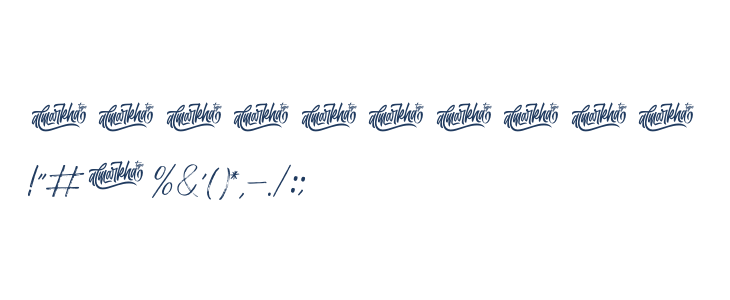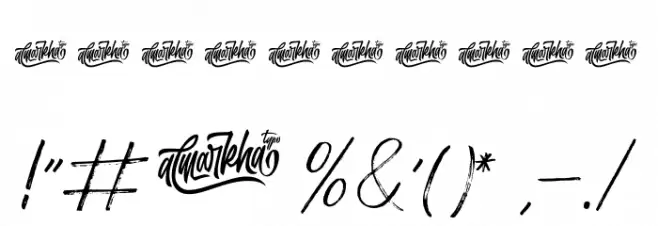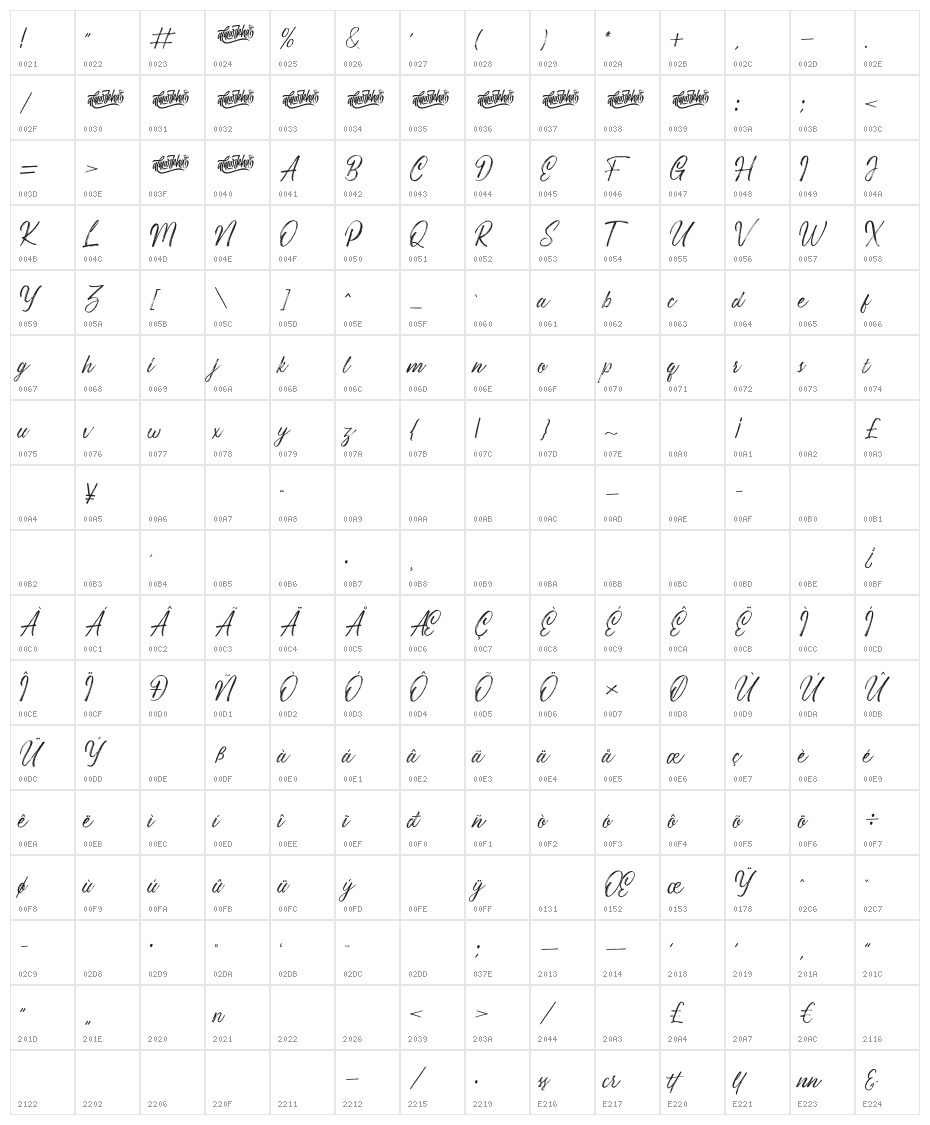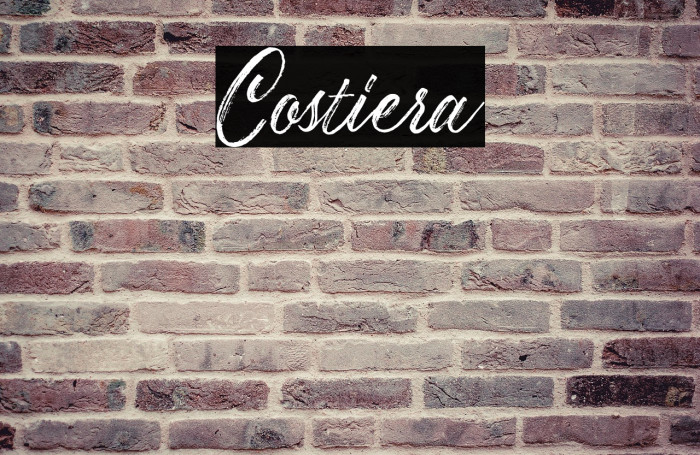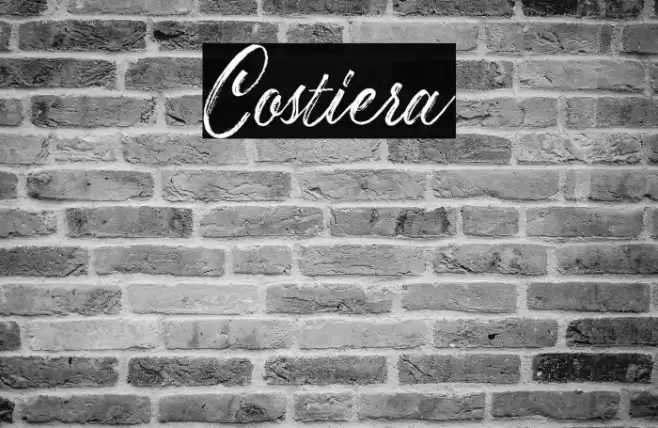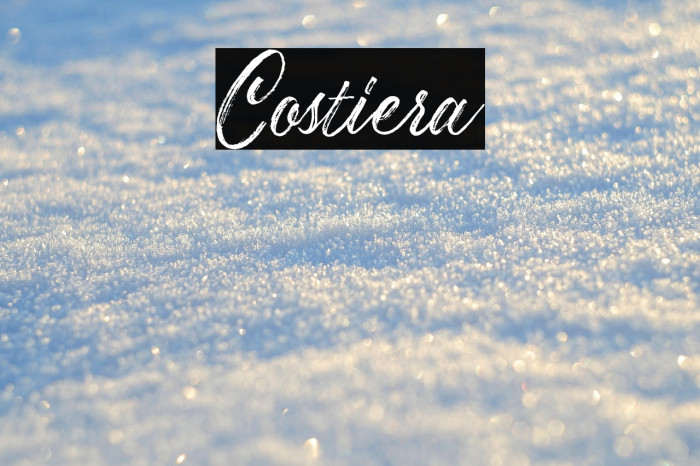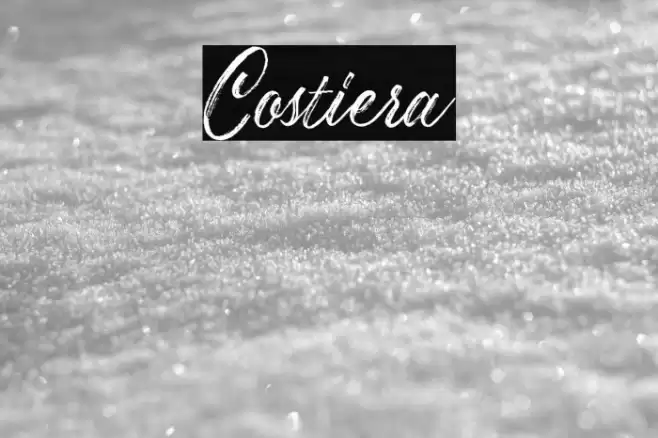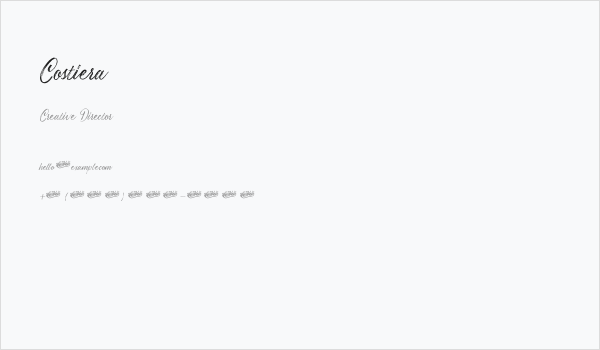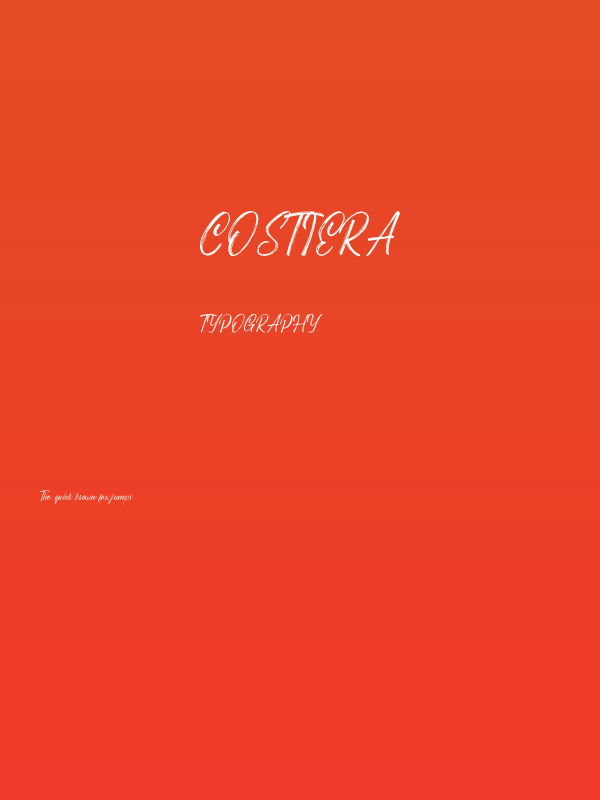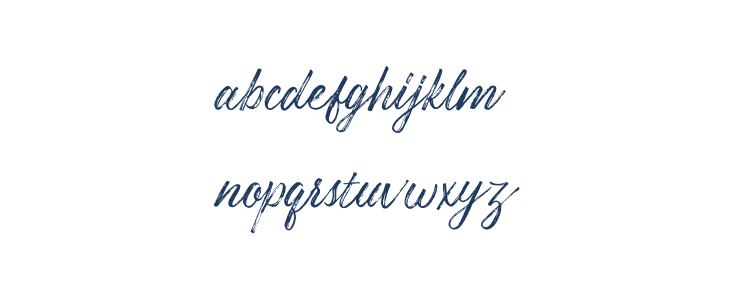
Costiera Font
Costiera Description
This font exudes a dynamic and artistic flair, characterized by its brush-like strokes that give it a hand-drawn appearance. The uppercase letters are bold and sweeping, with a sense of movement and energy. The lowercase letters maintain a fluid and cursive style, complementing the uppercase with their elegant curves. The numbers and special characters follow the same artistic theme, ensuring consistency across all glyphs. The overall design is reminiscent of calligraphy, with a modern twist that makes it suitable for creative and expressive projects. The texture within the strokes adds depth and a tactile quality, enhancing its visual appeal.